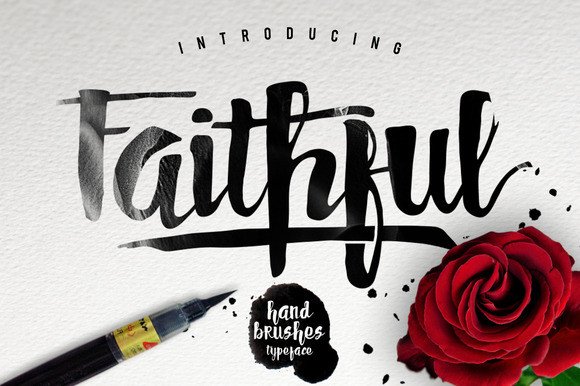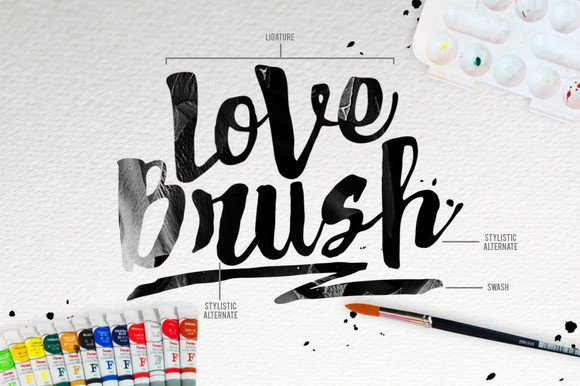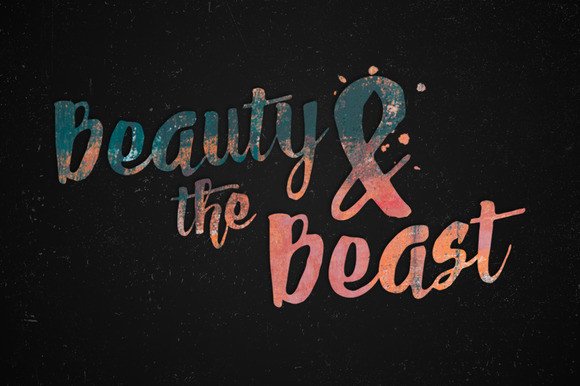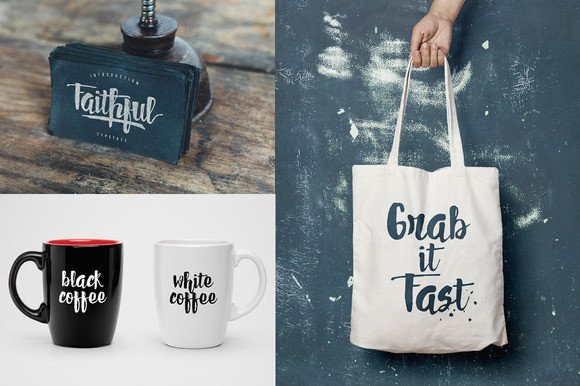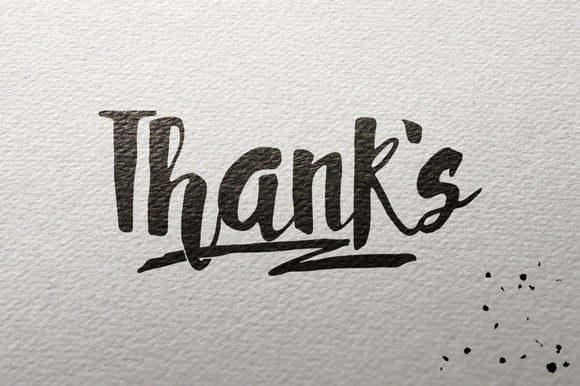
Faithful Font
About Faithful Font
Faithful is a brush script font that you can always rely on; this gorgeous font is an adaptable and persuasive font that works in a large range of designs and creative projects.